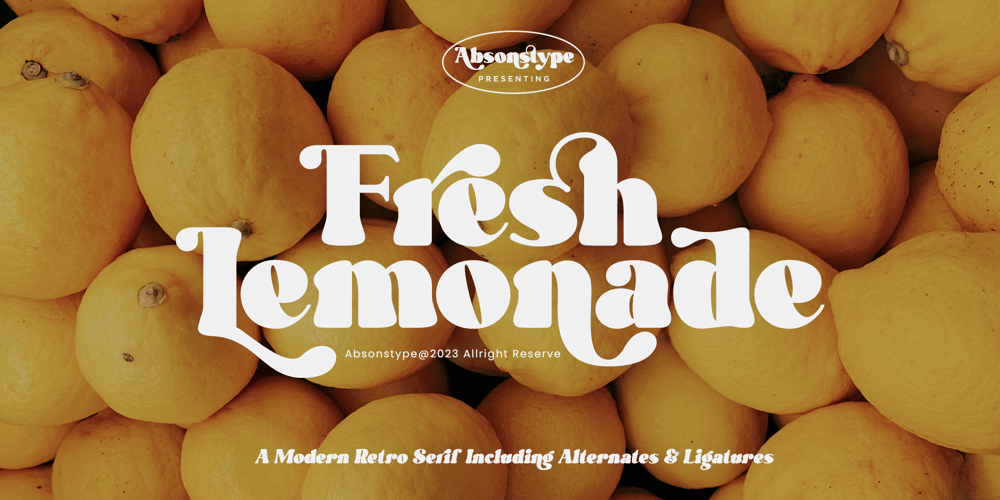
Fresh Lemonade
Fresh Lemonade font
Fresh Lemonade Font Family was designed by Sarwo Edhi Prayitno, Edhi Prayitno and published by Absonstype. Fresh Lemonade contains 2 styles and family package options. Fresh Lemonade is the Bold Serif display typeface with combine uppercase and lowercase looks and feel nice balanced. Provide with alternates and ligatures font in variant style make the design letter looks nice. Honestly it works perfectly for headlines, logos, posters, packaging, T-shirts and much more.Recommended to use in Adobe Illustrator or Adobe Photoshop with opentype feature.Ligatures feature is default setting in Adobe Illustrator or Adobe Photoshop in Uppercase character. So when you want not to use the ligatures.Open glyphs panel : In Adobe Photoshop choose tool Window Character and then please click fi symbol In Adobe Illustrator choose tool Window Type Open Type and then please click fi symbol How to access Alternates Character?Open glyphs panel : In Adobe Photoshop choose tool Window glyphs In Adobe Illustrator choose tool Type glyphs If you have questions, just send me a message and I’m glad to help.Have a great day,Absonstype